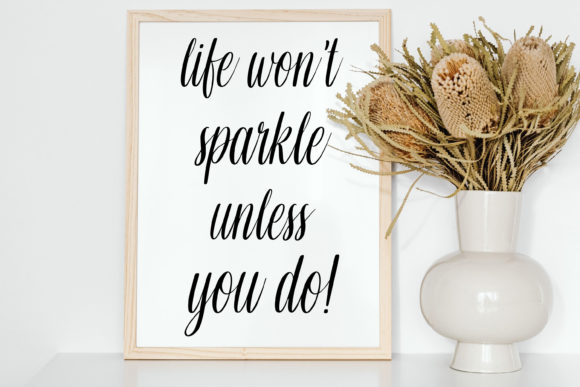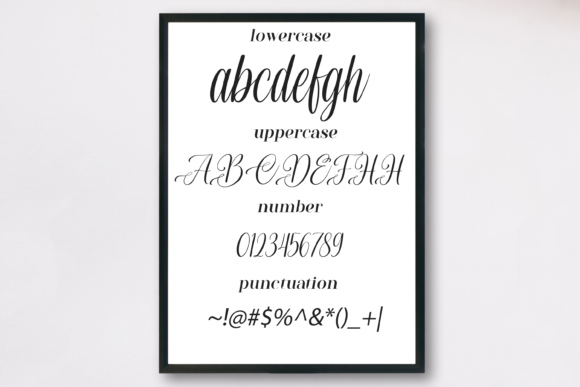
Rasyhanda Font
db-ku.com - Script & Handwritten -- Rasyhanda is a delicate, elegant and flowing handwritten font. It has beautiful and well balanced characters and as a result, it matches a wide pool of designs. Add it to your most creative ideas and notice how it makes them come alive!